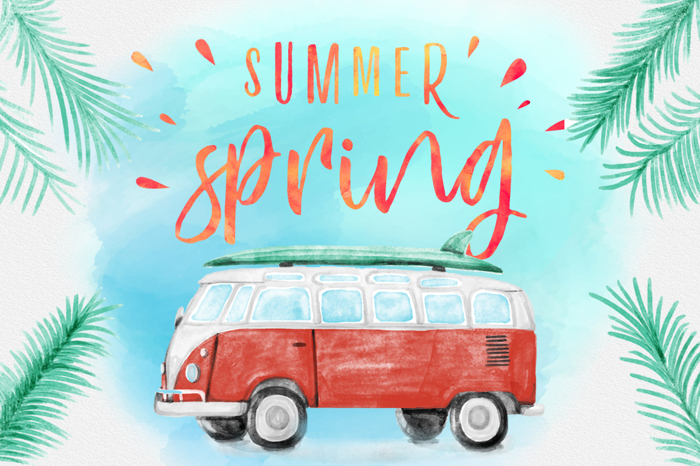
Vayentha Sans Demo Font
Vayentha two hand lettered typeface both of which complement each other. Very personality and very special result on every character. Three kinds of lowercase script is very beautiful was completely with two uppercase sans